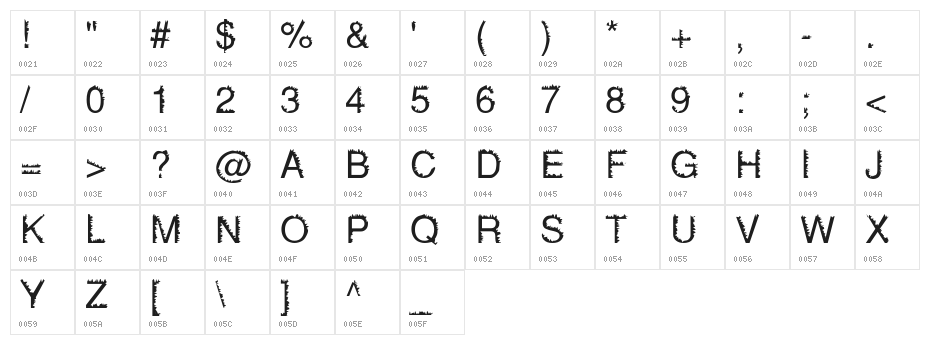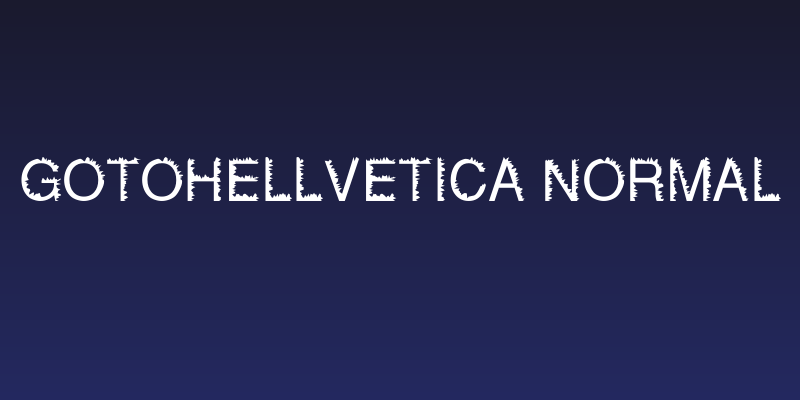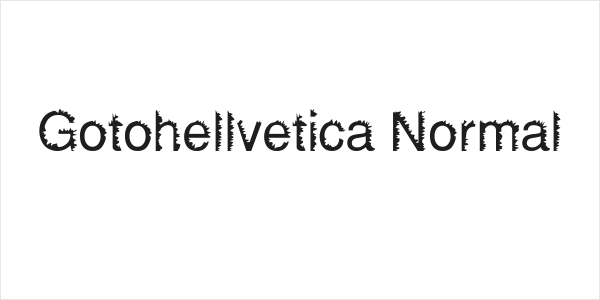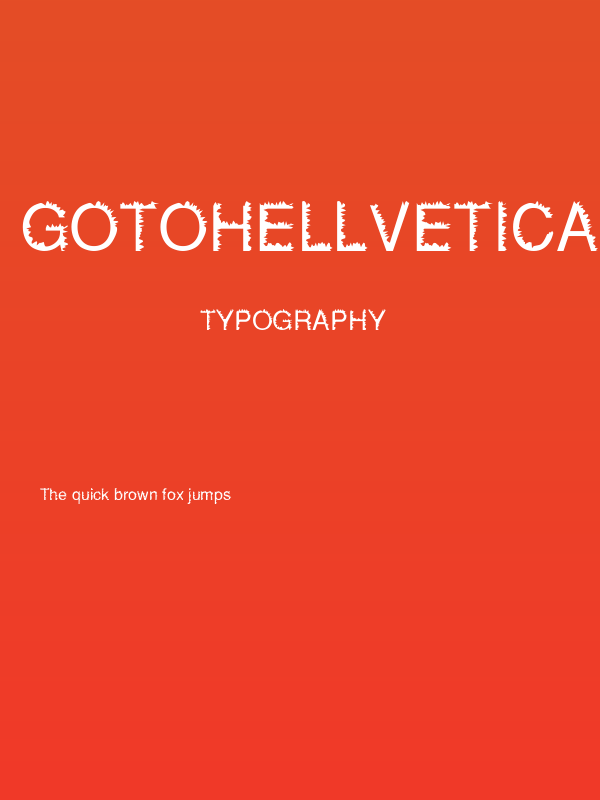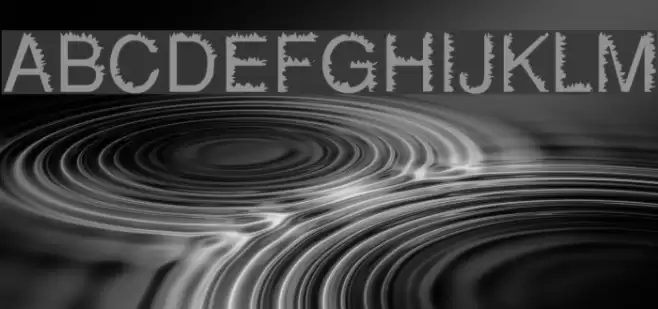
Gotohellvetica Normal Font
Gotohellvetica Normal Description
This font features a unique and edgy design with jagged, irregular edges that give it a distressed and chaotic appearance. The characters maintain a consistent structure, but the rough, torn edges create a sense of movement and energy. This style is reminiscent of grunge or punk aesthetics, making it stand out with its bold and unconventional look. The uppercase and lowercase letters, as well as numbers and special characters, all share this distinctive texture, ensuring a cohesive appearance across different uses.
| Overall Style | Grunge, Punk, Edgy |
| Use Case | Headlines, Posters, Branding |
| Proposed Projects | Ideal for projects that require a rebellious or edgy theme, such as music album covers, posters, or branding for alternative fashion lines. |